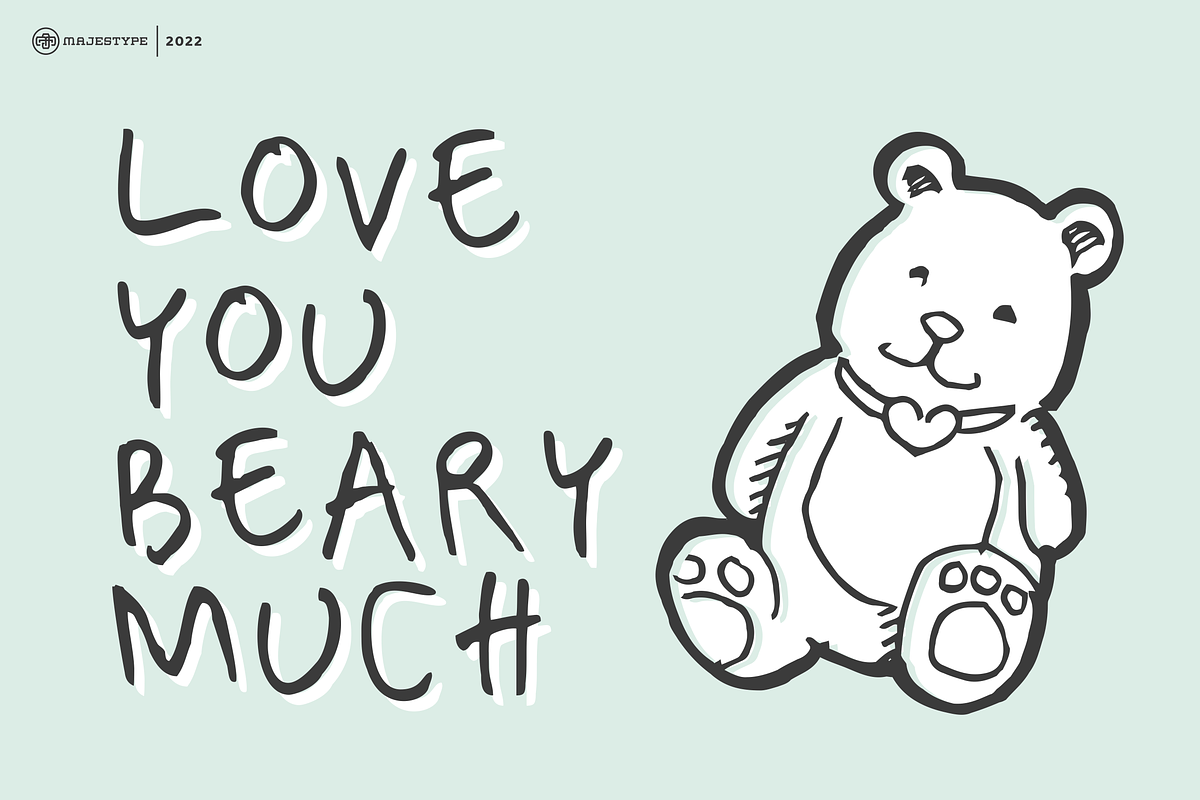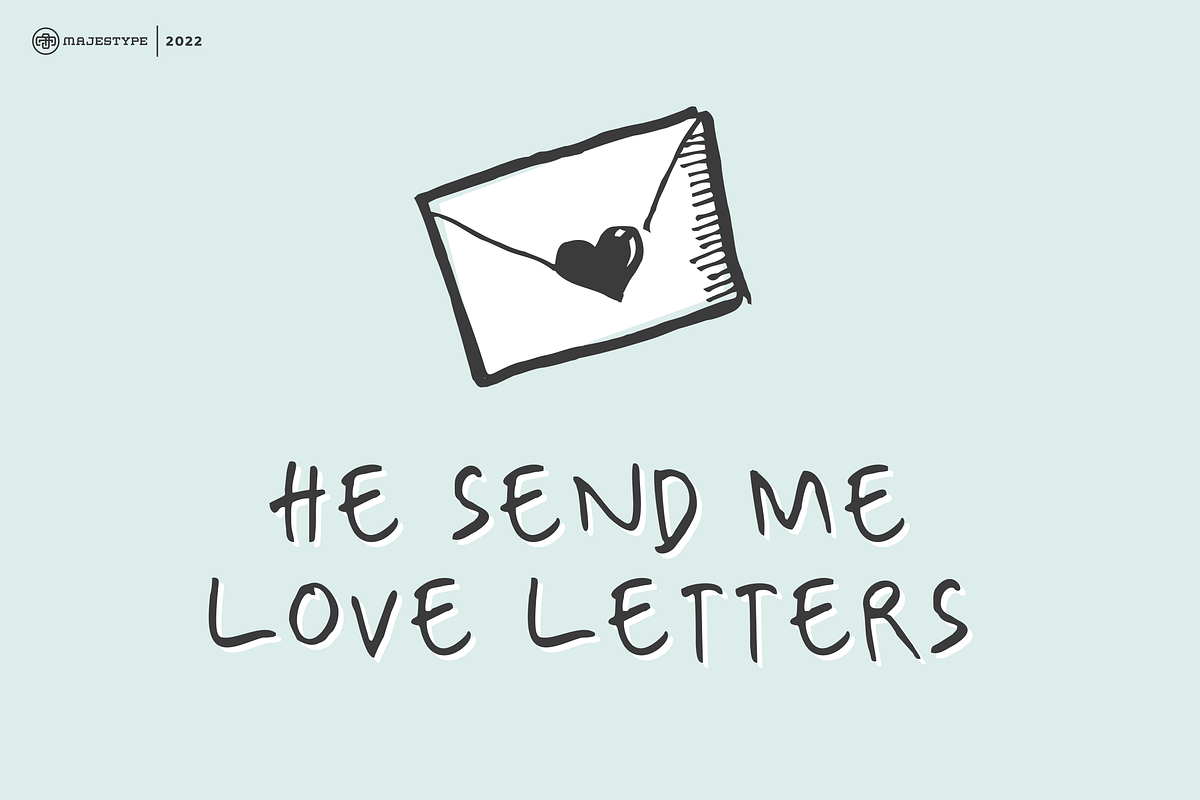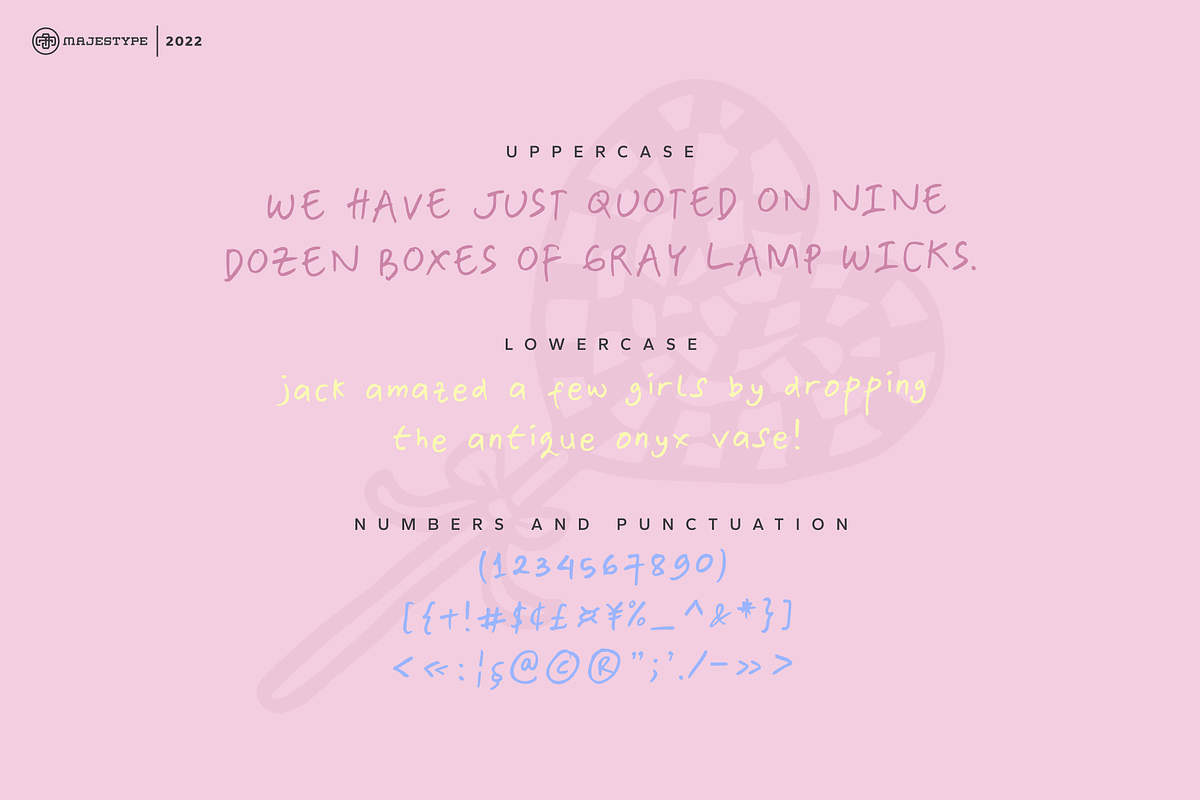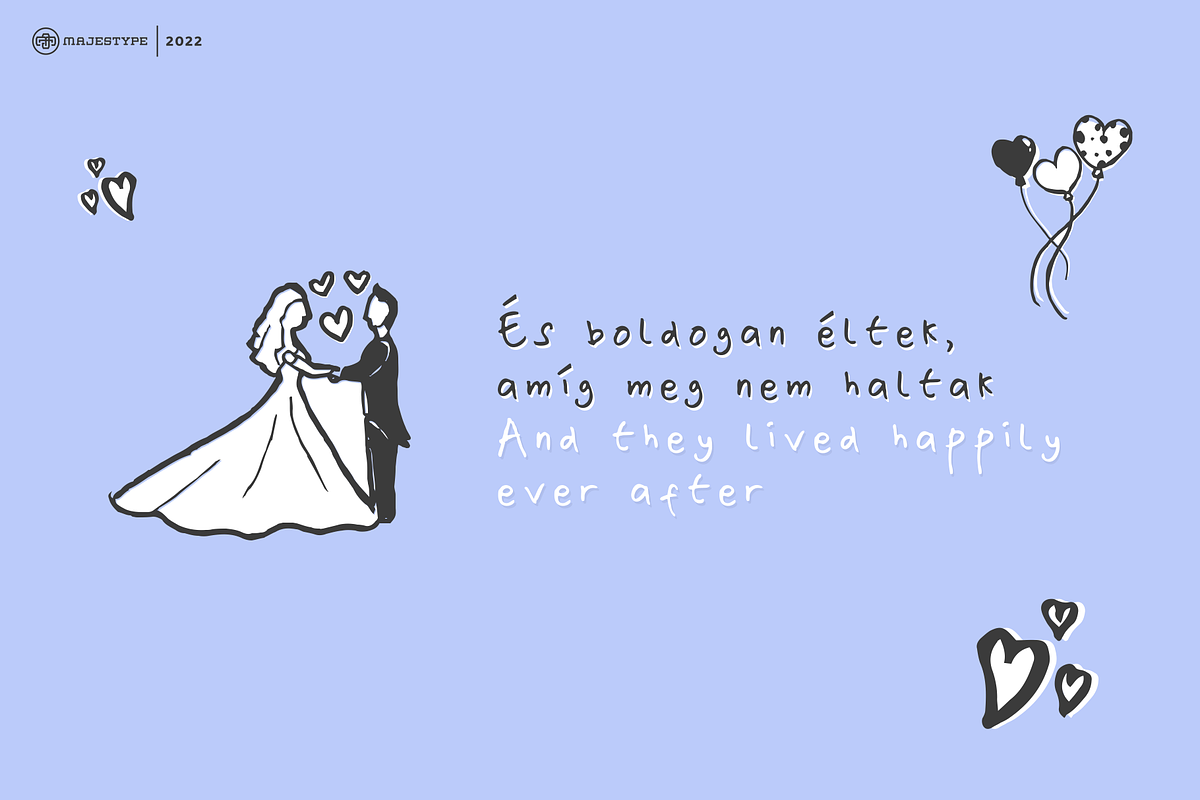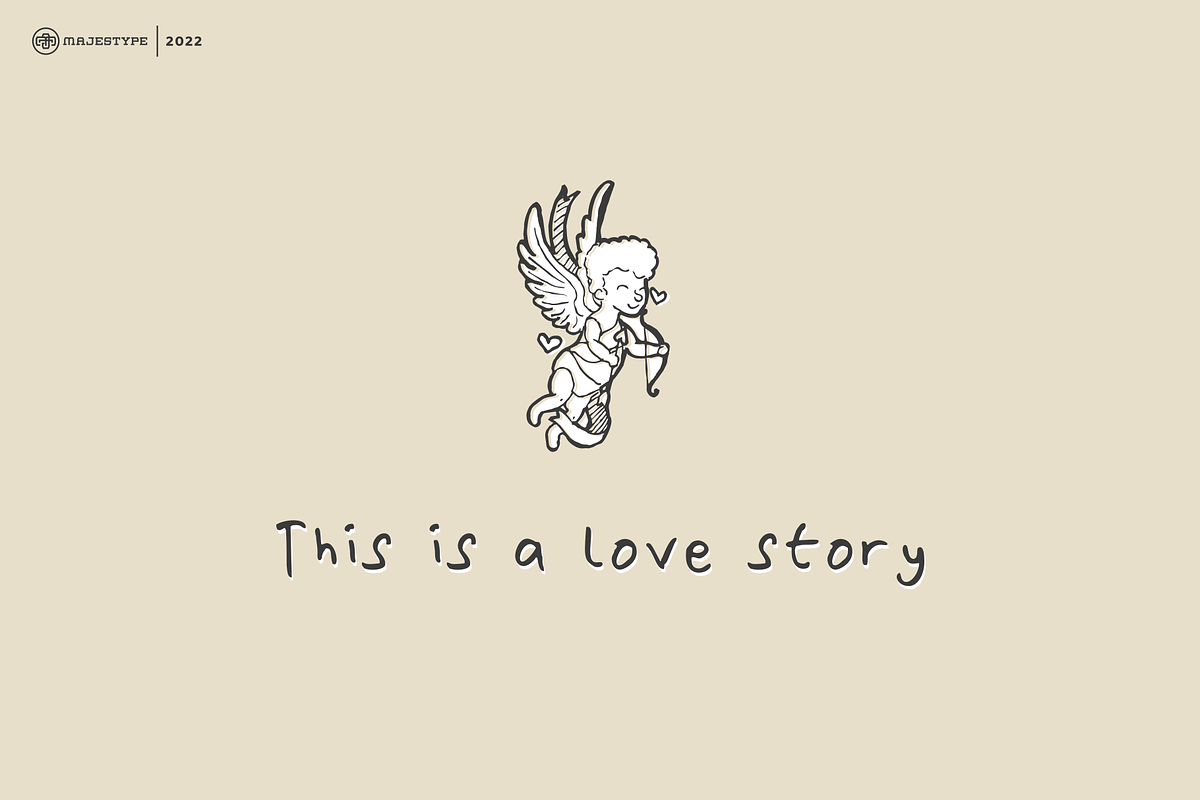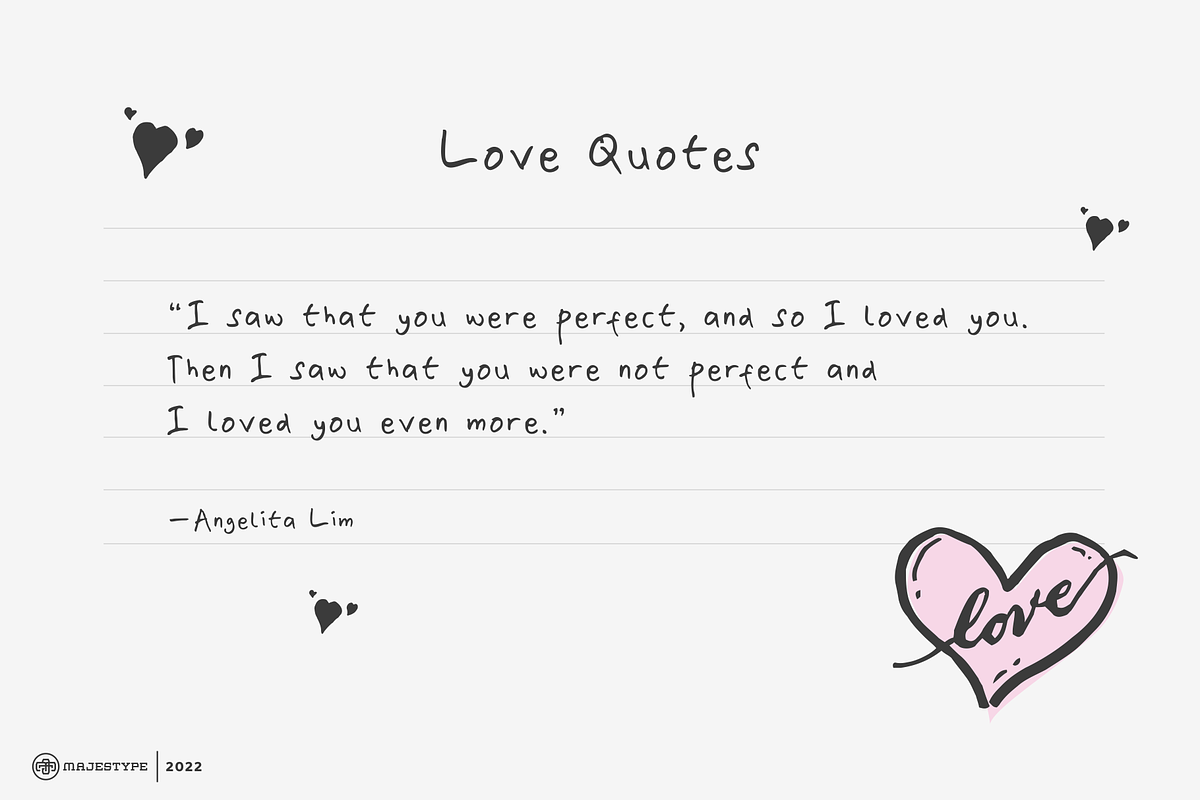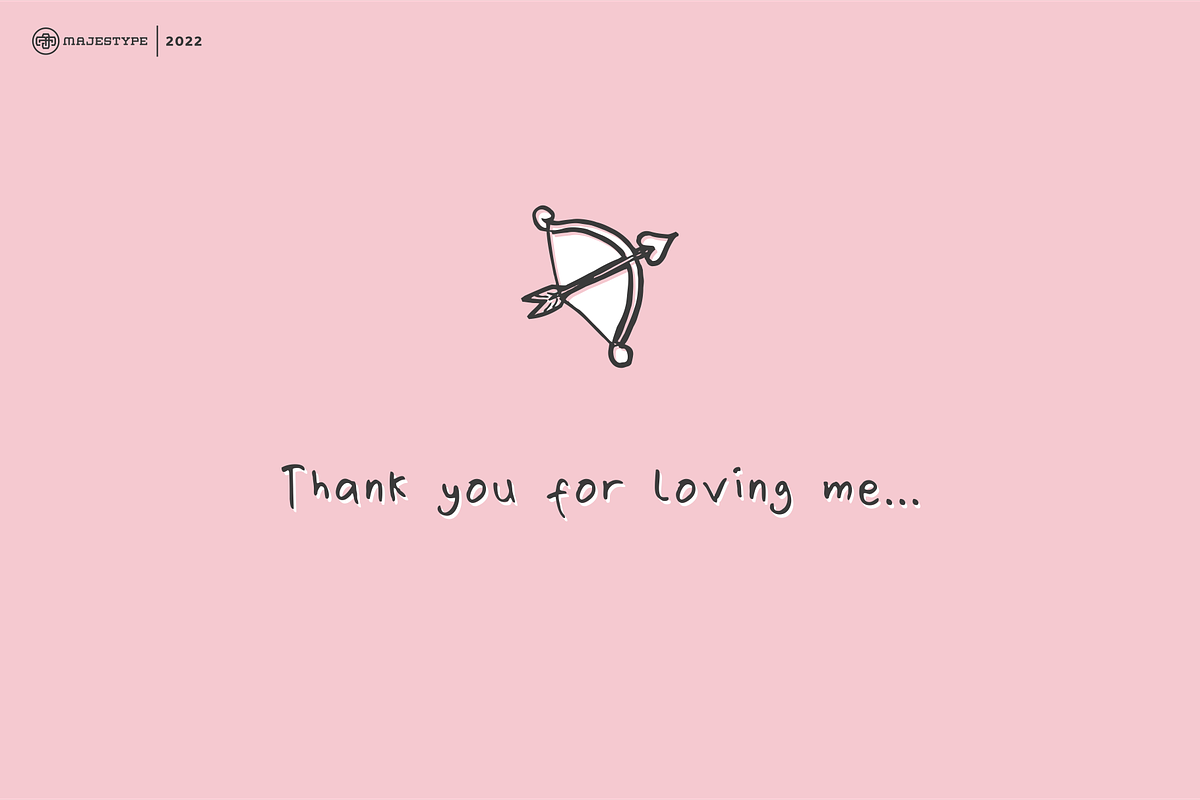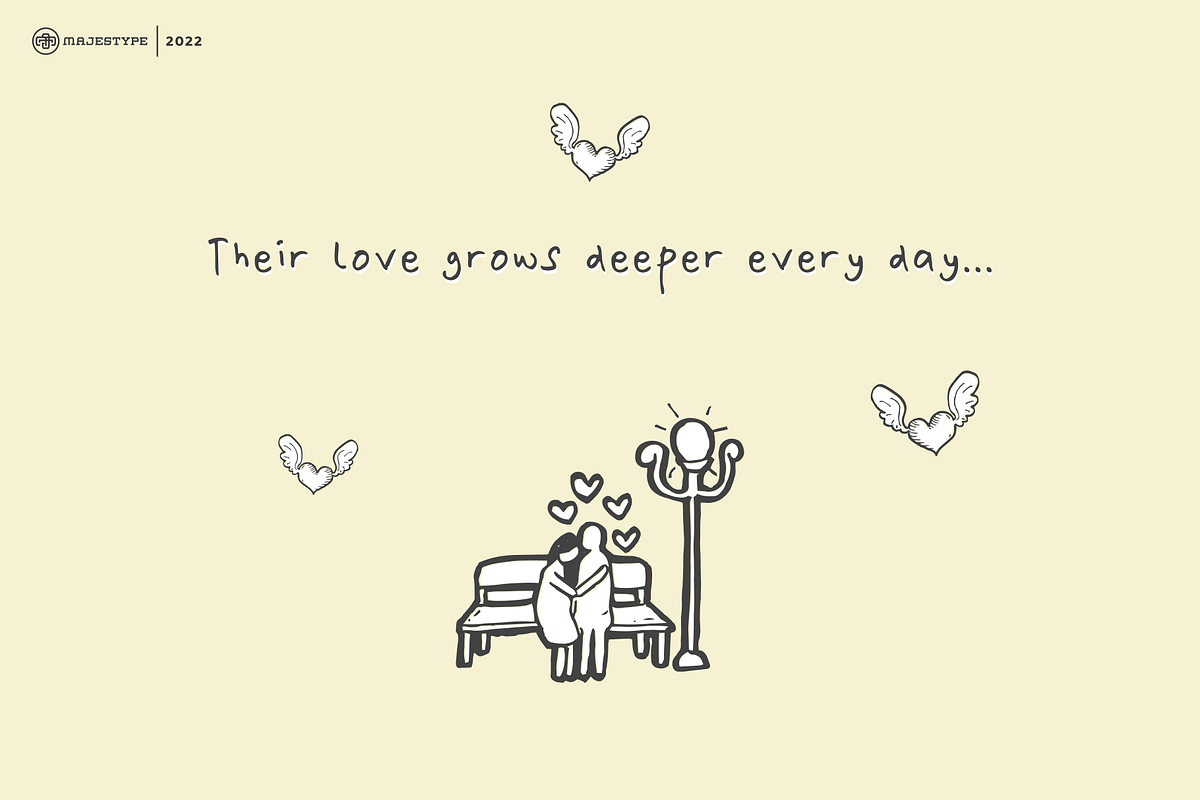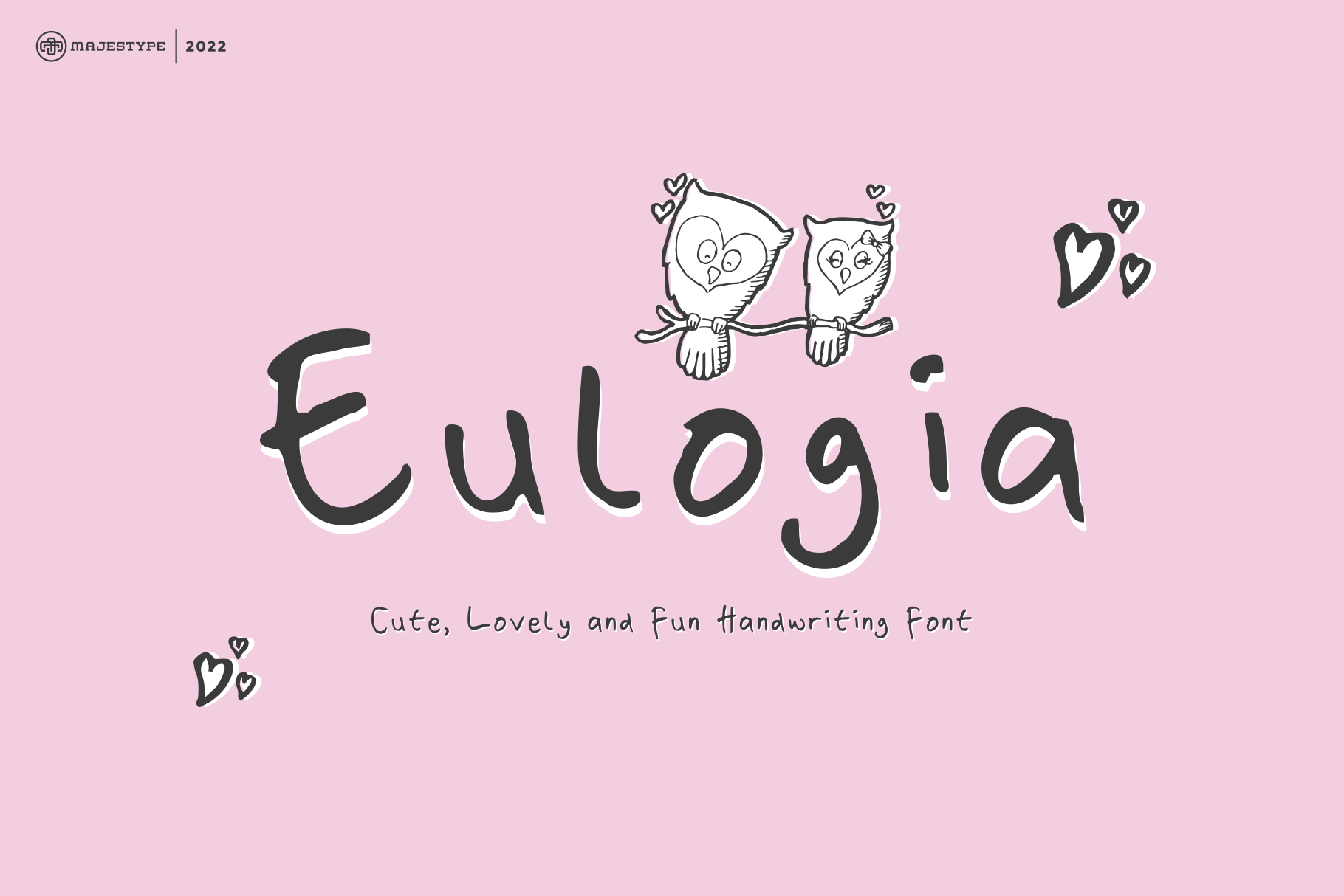
Eulogia - Handwriting Fonts
Eulogia is one of those Cute Fonts that's a real hoot and absolutely perfect for designs that need a bit of pizzazz and cuteness. It was made with love and markers from scratch and brings a playful and unique vibe to your designs.
With over 300 glyphs, this font is a veritable goldmine for creating rad designs. Eulogia is a killer choice for comics, displays, titles, and children's designs that are paired with some wicked illustrations, like our poster displays.
What's more, Eulogia also supports a bunch of languages, such as Catalan, Danish, German, English, Spanish, Estonian, Finnish, French, Irish, Icelandic, Italian, Norwegian, Portuguese, Slovenian, Albanian, and Swedish. So you won't have to sweat over language barriers and whatnot.